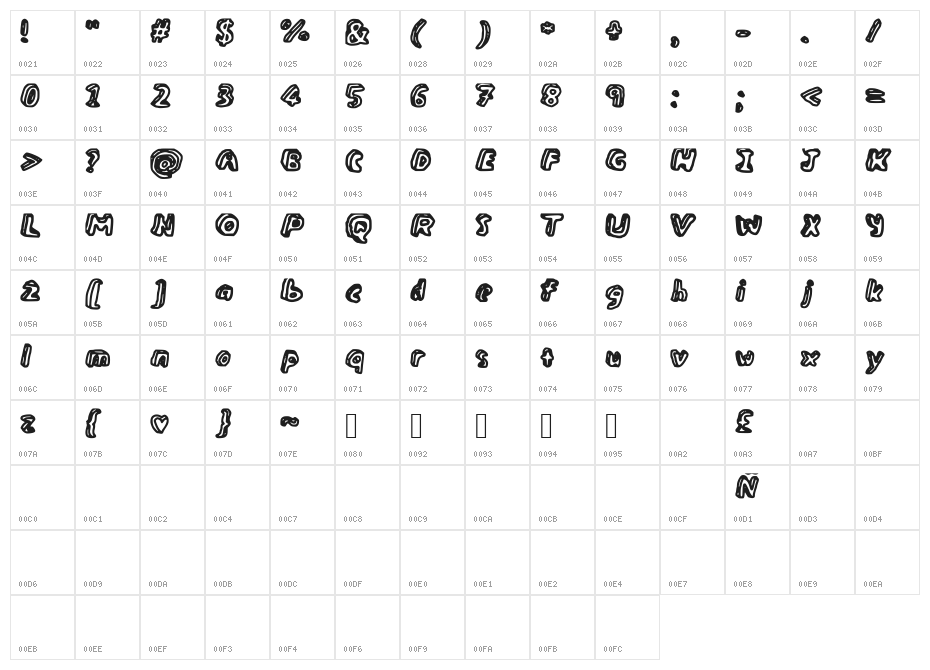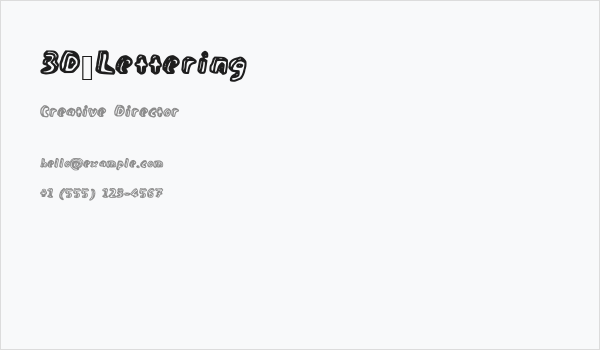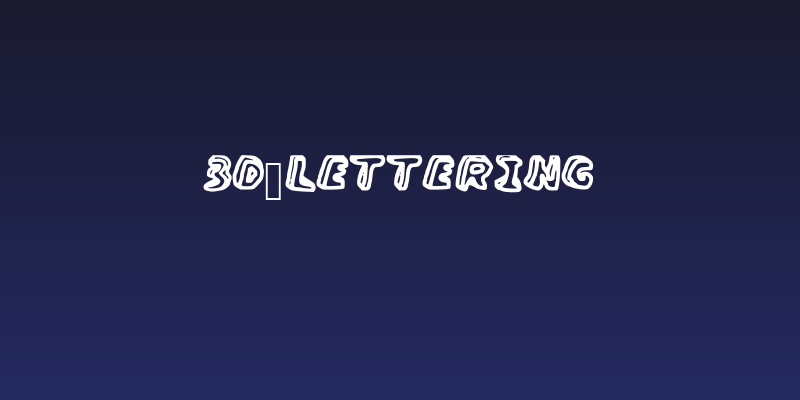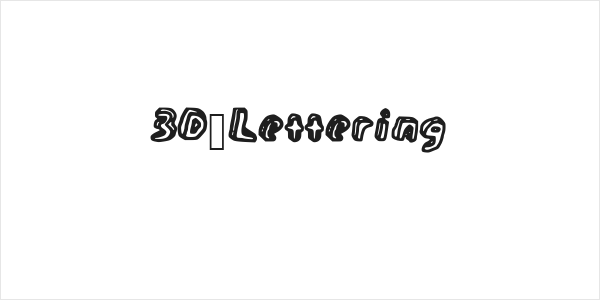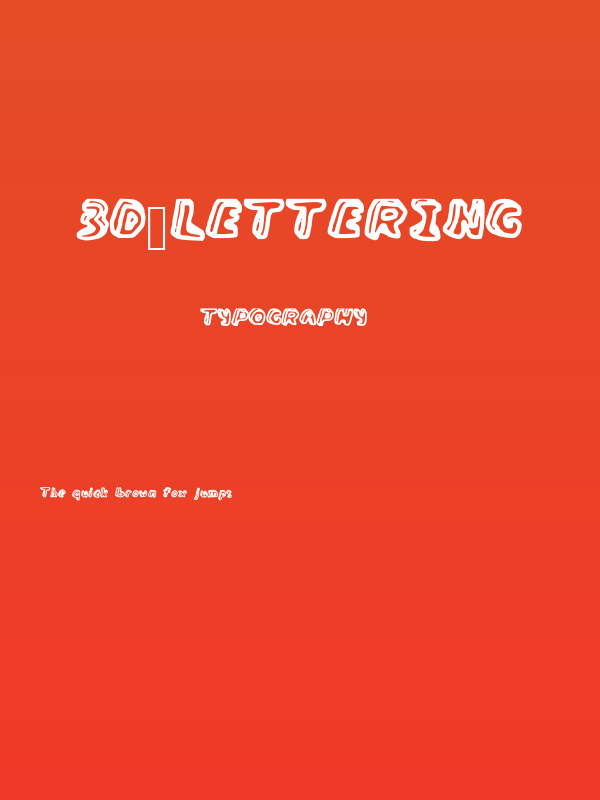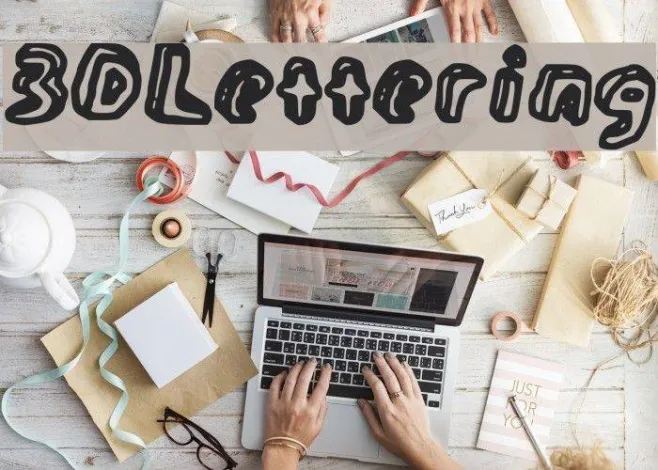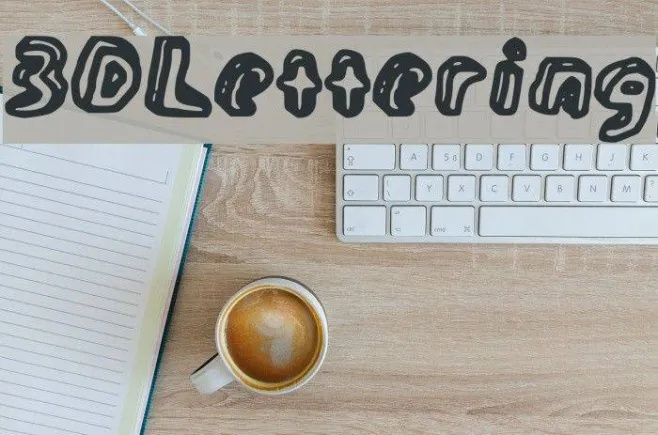
3D_Lettering Font
3D_Lettering Description
This font features a bold, playful 3D effect that gives each character a sense of depth and dimension. The letters are outlined with a thick black stroke, creating a striking contrast against the white interior. The style is reminiscent of graffiti or street art, with a casual and informal vibe. The uppercase and lowercase letters maintain a consistent style, with rounded edges and a slightly irregular shape that adds to the font's charm. Numbers and special characters are designed with the same playful aesthetic, making them suitable for a variety of creative projects. The overall appearance is eye-catching and dynamic, perfect for designs that require a bold statement.